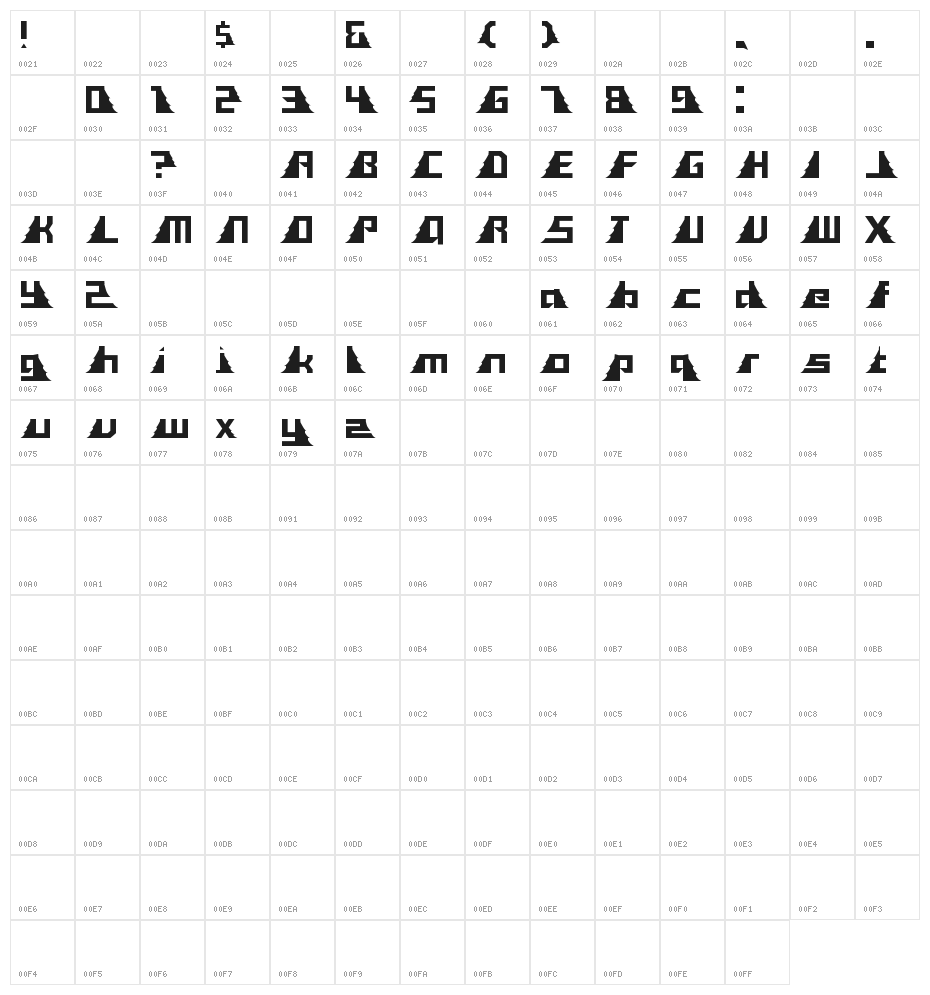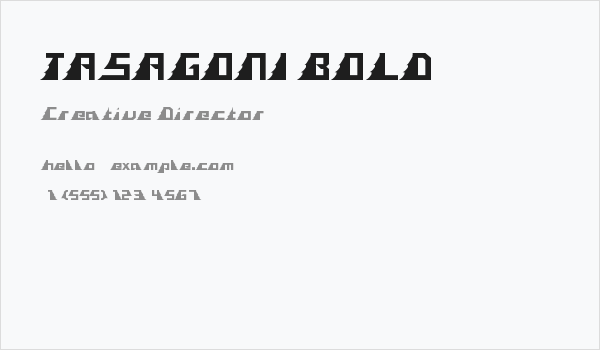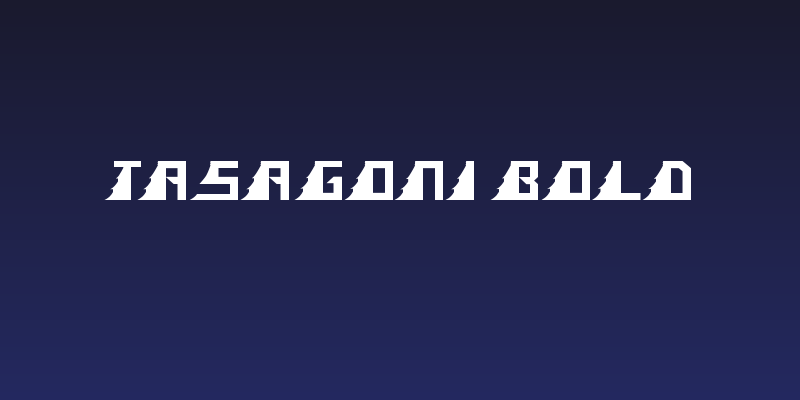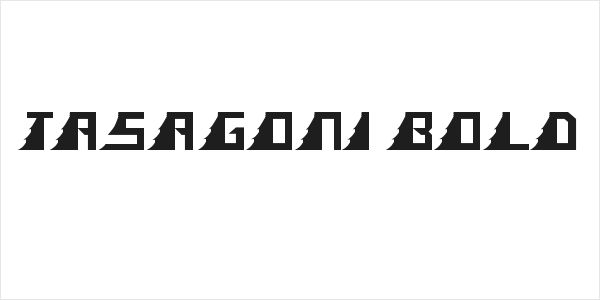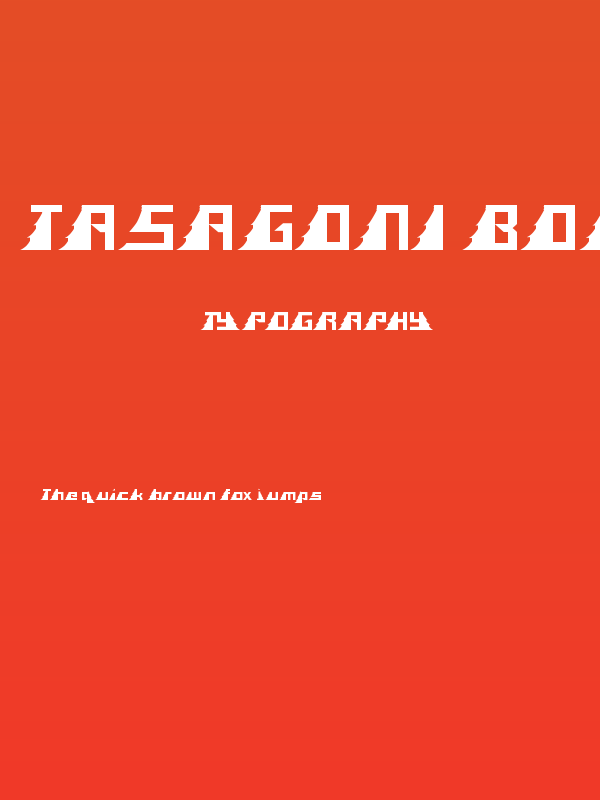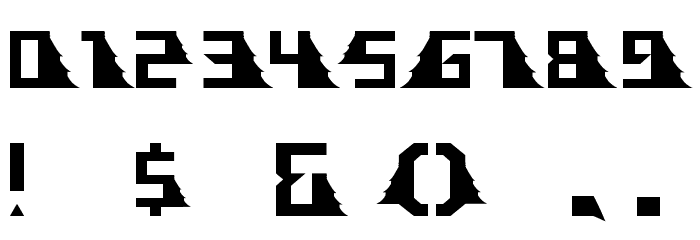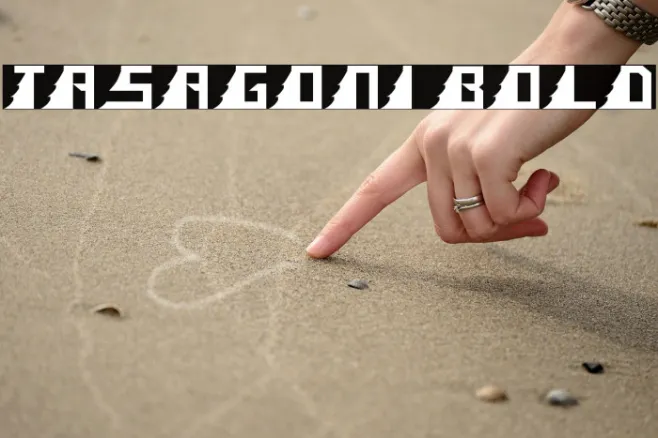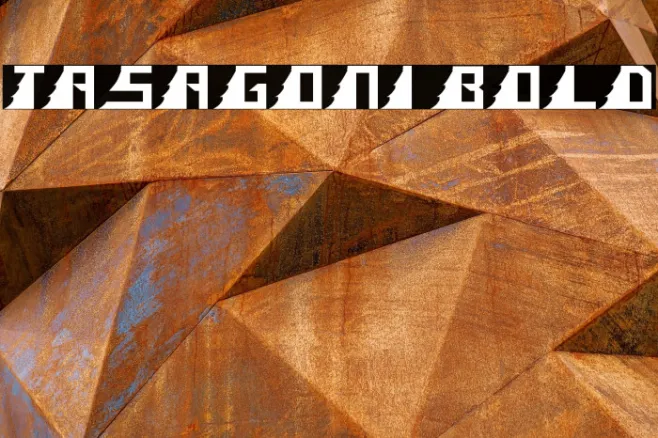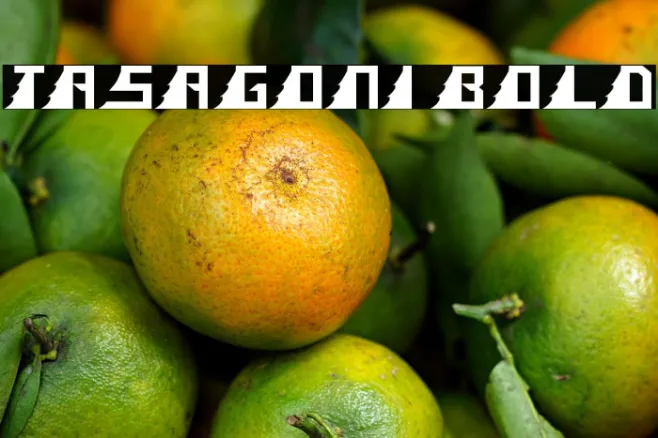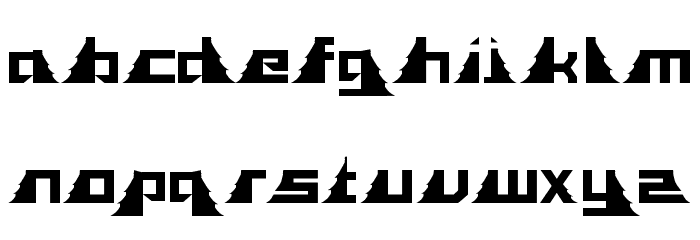
TASAGONI BOLD Font
TASAGONI BOLD Description
This font features a bold and angular design with sharp, jagged edges that give it a unique and aggressive appearance. The characters are heavily stylized, with a geometric and abstract form that creates a sense of movement and energy. The uppercase and lowercase letters maintain a consistent style, with the uppercase being slightly more pronounced. The numbers and special characters follow the same design principles, ensuring a cohesive look across all elements. This font's distinct style makes it stand out, making it suitable for projects that require a strong visual impact.
| Overall Style | Modern, Aggressive |
| Proposed Projects | Ideal for use in video game titles, music album covers, posters, and branding for edgy or modern products. |